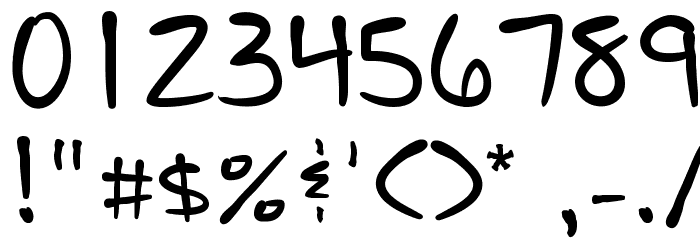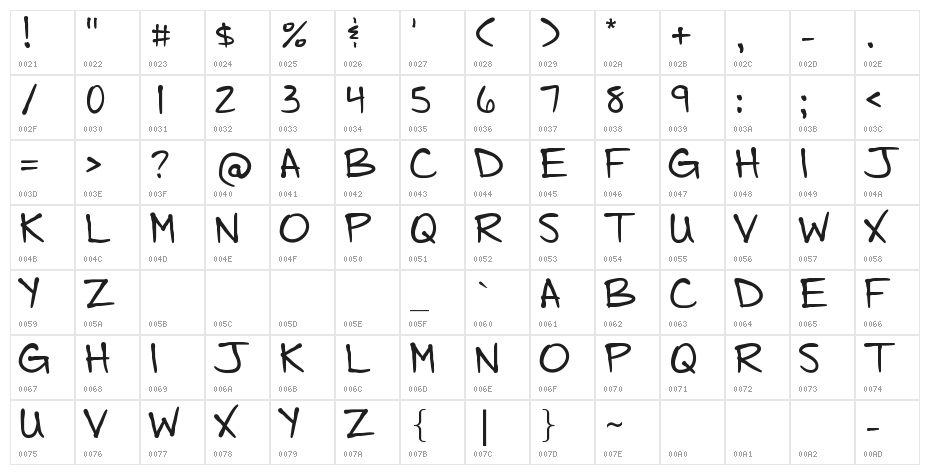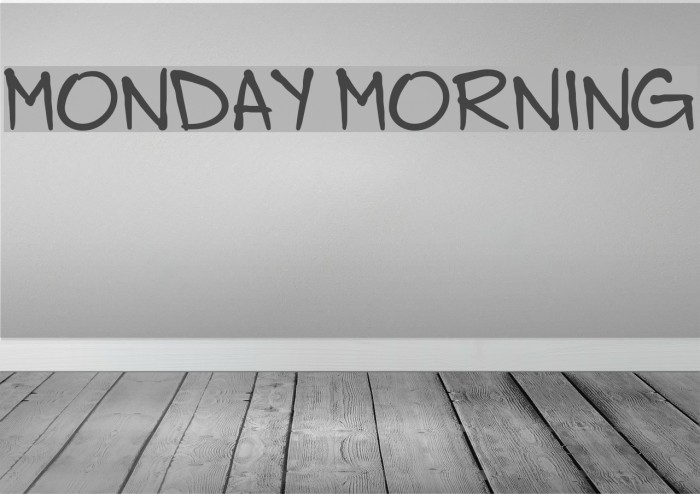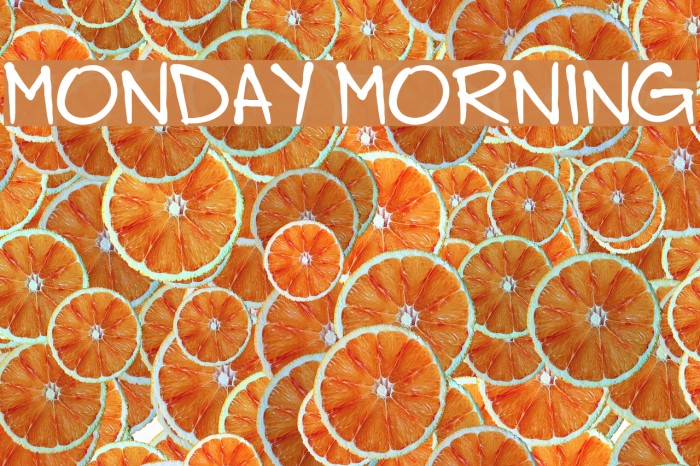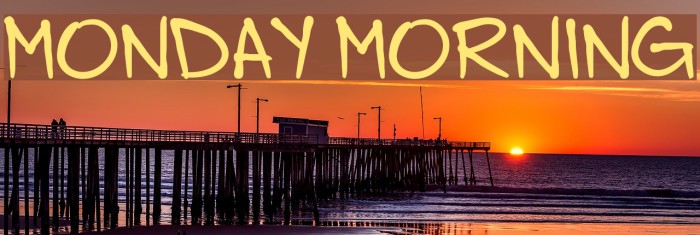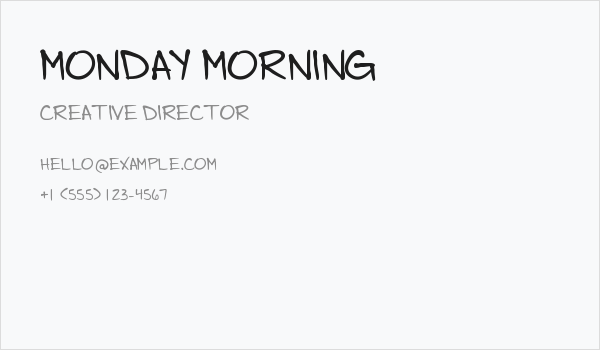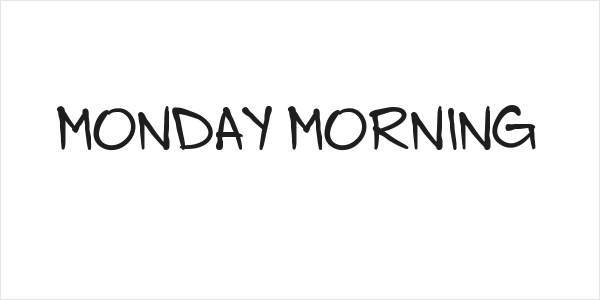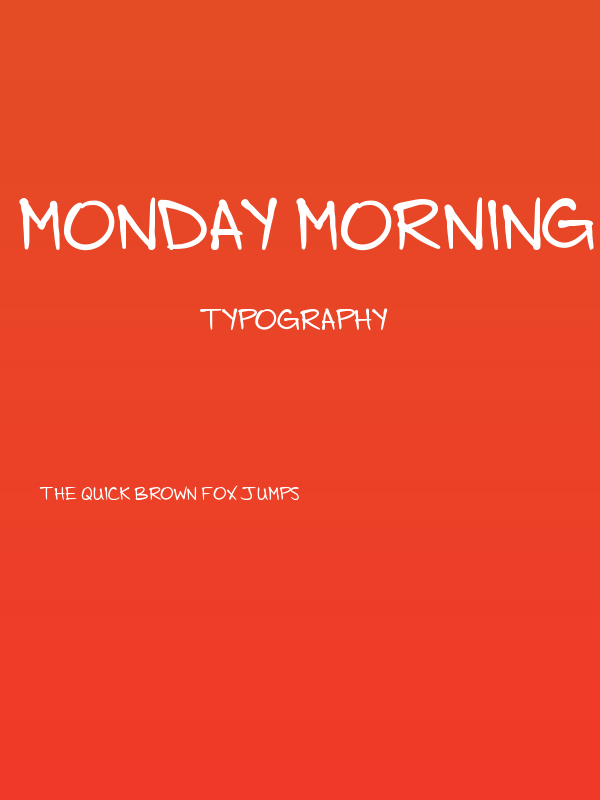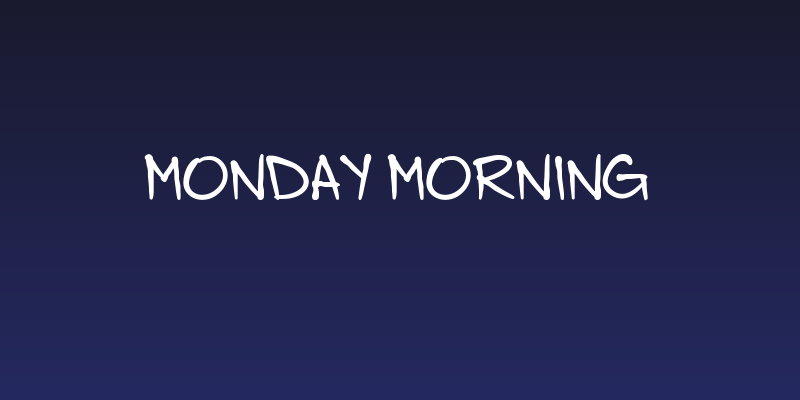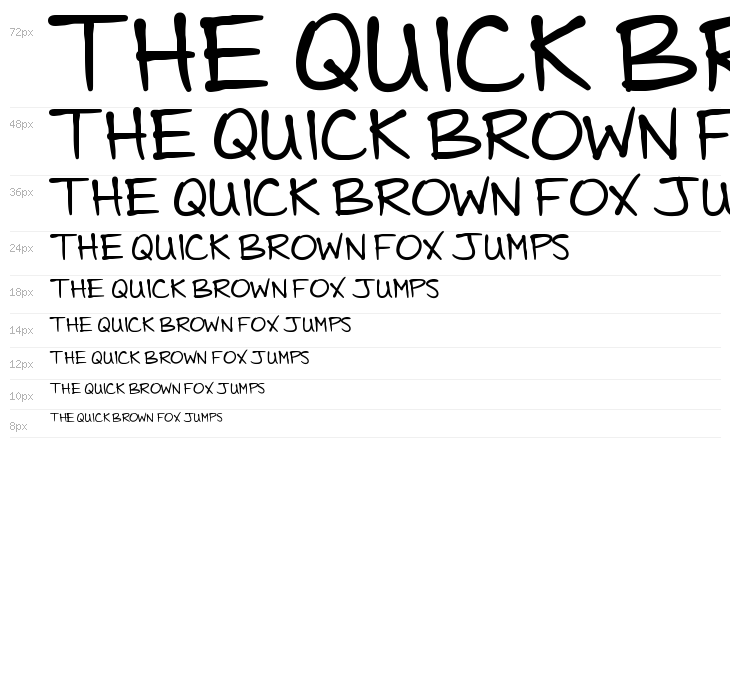
Monday Morning Font
Monday Morning Description
This font features a playful and casual handwritten style, characterized by its uneven strokes and slightly tilted letters. The uppercase and lowercase letters maintain a consistent flow, giving it a relaxed and informal appearance. The numbers and special characters are crafted with the same whimsical touch, making them blend seamlessly with the alphabet. The overall design is reminiscent of a personal note or a casual doodle, making it ideal for projects that require a friendly and approachable feel. Its unique charm lies in its imperfect lines and organic shapes, which add a touch of personality and warmth.
| Proposed Projects | Ideal for greeting cards, children's books, casual invitations, and social media graphics. |